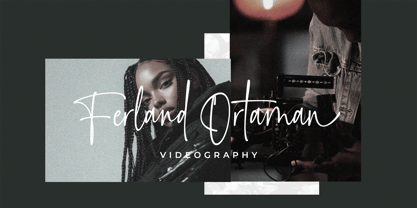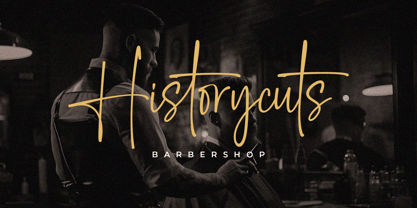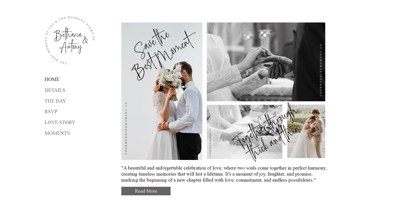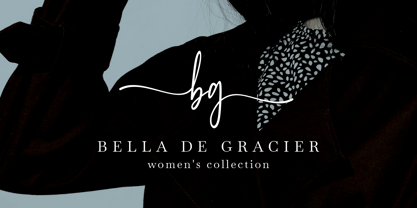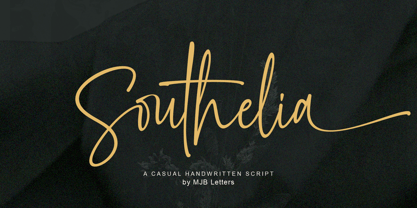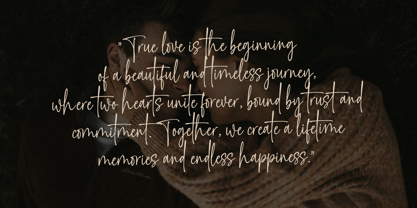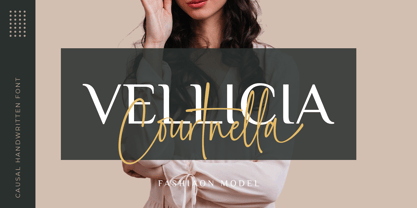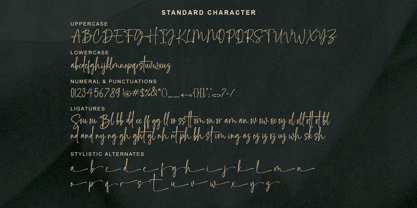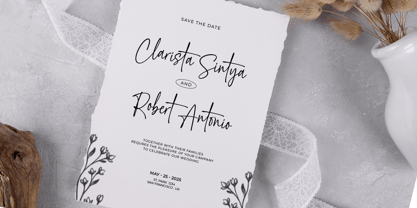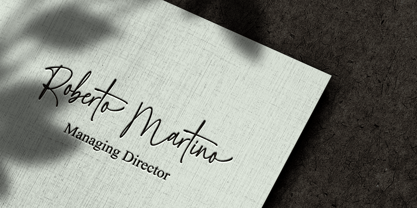
Southelia
by MJB Letters
The Southelia Font Family was designed by Muhammad Mujibulloh and published by MJB Letters. Southelia contains 1 styles. More about this family
Southelia is a modern and elegant script font designed by MJB Letters. With smooth hand-drawn strokes and beautifully extended swashes, Southelia brings a luxurious and feminine feel that’s perfect for a wide range of design needs including branding, wedding invitations, logos, product packaging, and social media.
This font features OpenType capabilities and a ton of ligatures, allowing for more natural and professional-looking typography. Every character is crafted with care to ensure stunning composition, especially when used in longer words or phrases.
Perfect for elegant and feminine designs, high-end branding, greeting cards, wedding invites, fashion or beauty logos, and social media headlines.